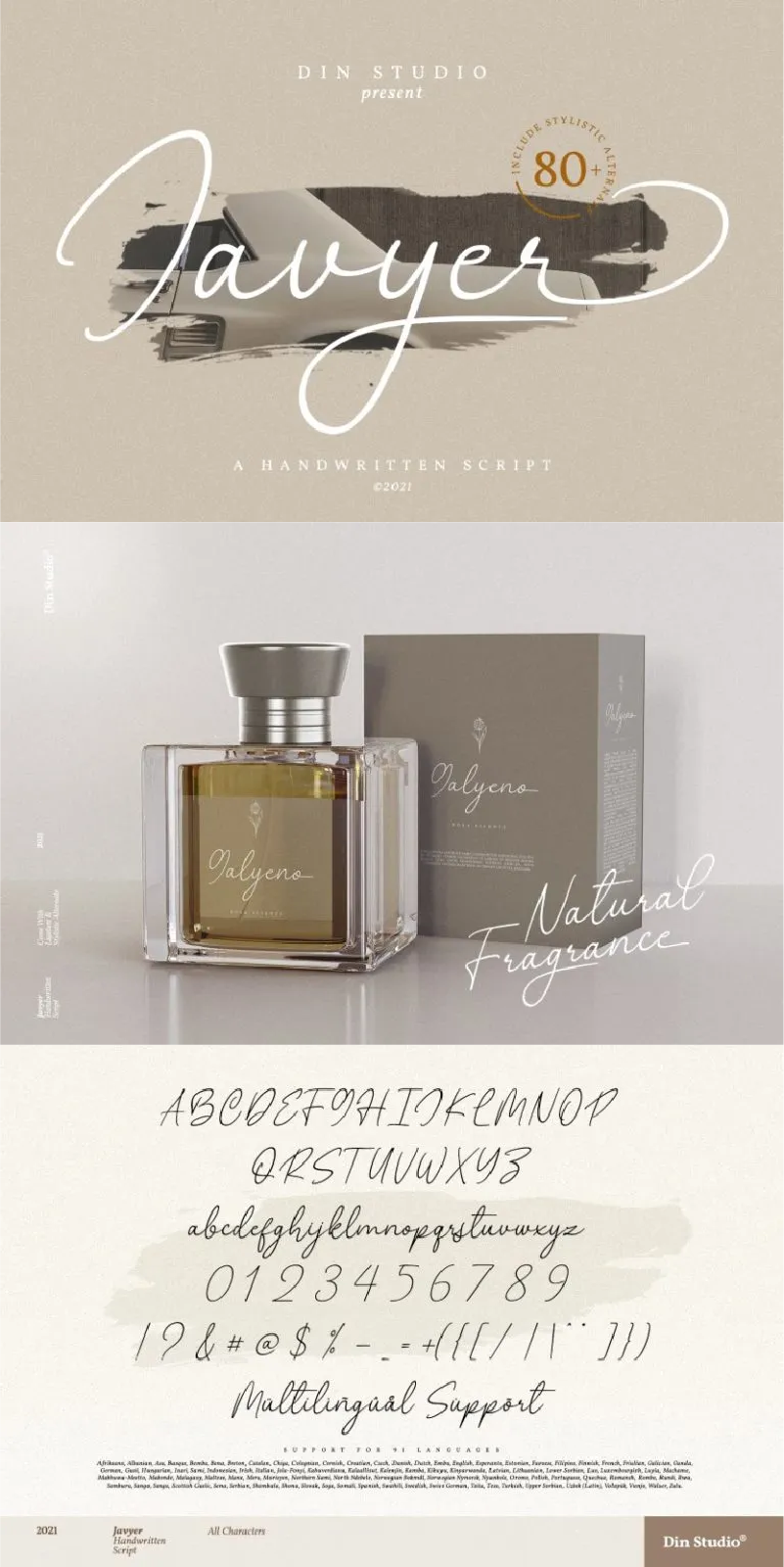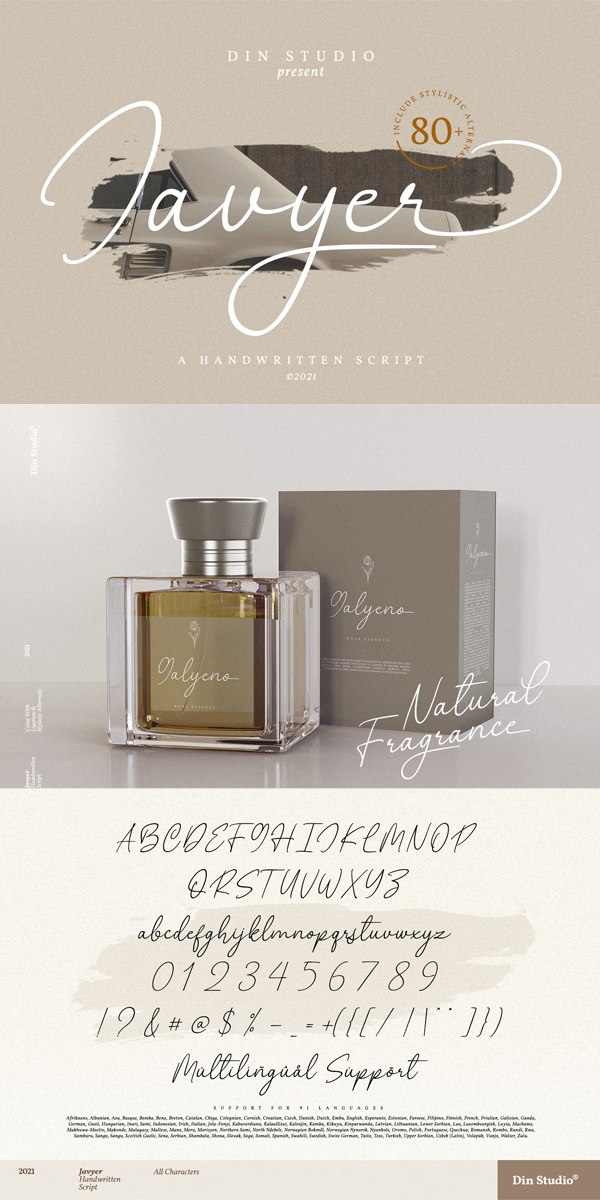
Javyer Font
About Javyer
Javyer – A Handwritten Font
This handmade font typeface with elegant style looks very interesting for loads of different projects and promotions. It is perfect to be used on your website, for your social media branding, Pinterest banners, printed products, and more! See the previews above to get some inspiration on how you can use them.